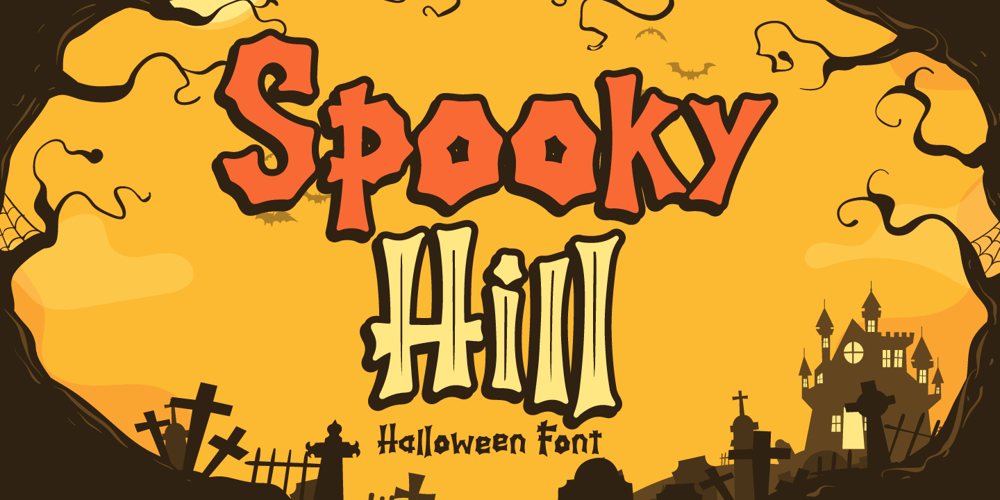
Spooky Hill Font Family was designed by Fadli Ramadhan Iskandar and published by Attype Studio. Spooky Hill contains 2 styles and family package options. Hello!Spooky Hill is an incredibly unique and playful display font. Fall in love with its authentic feel and use it to create spectacular Halloween designs!Spooky Hill is perfect for branding, logo, invitation, stationery, social media post, product packaging, merchandise, blog design, game titles, cute style design, Book/Cover Title and more.What’s Included :- Spooky Hill.otf- Spooky Hill Inline.otf- Multilingual Support (Afrikaans, Albanian, Catalan, Danish, Dutch, English, Estonian, Finnish, French, German, Icelandic, Italian, Norwegian, Portugese, Spanisch, Swedish, Zulu)—Hope you enjoy with our font!Attype Studio